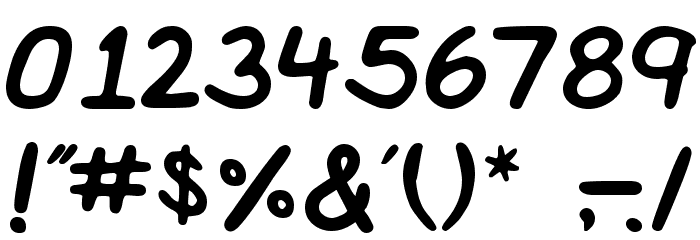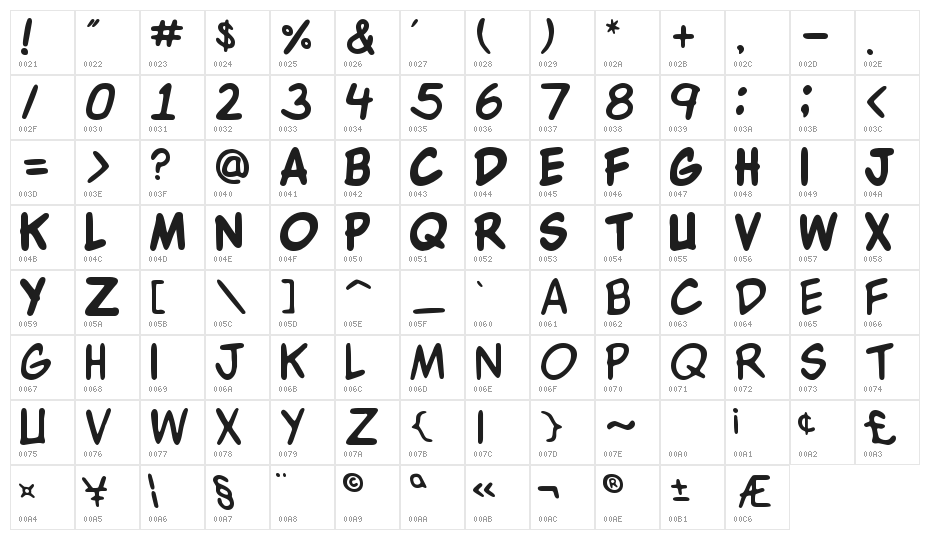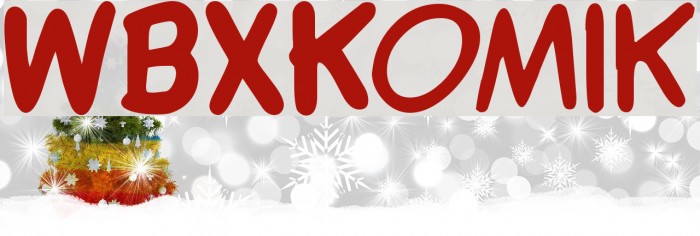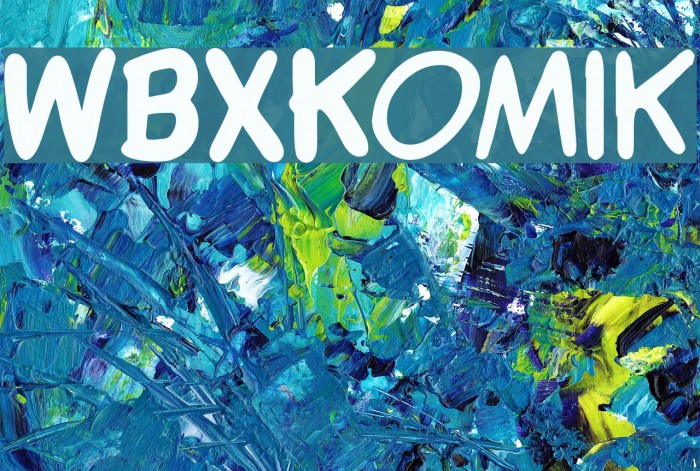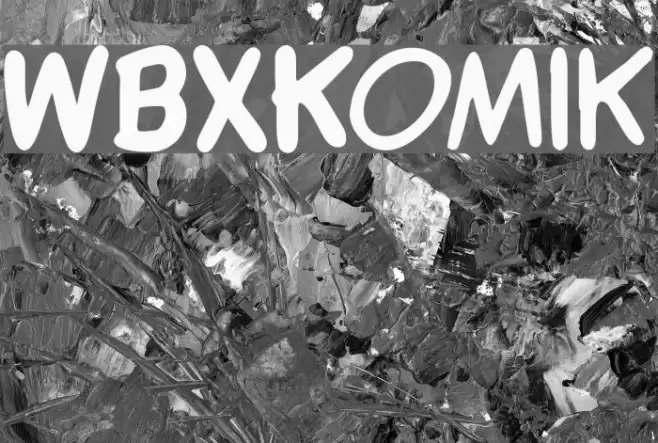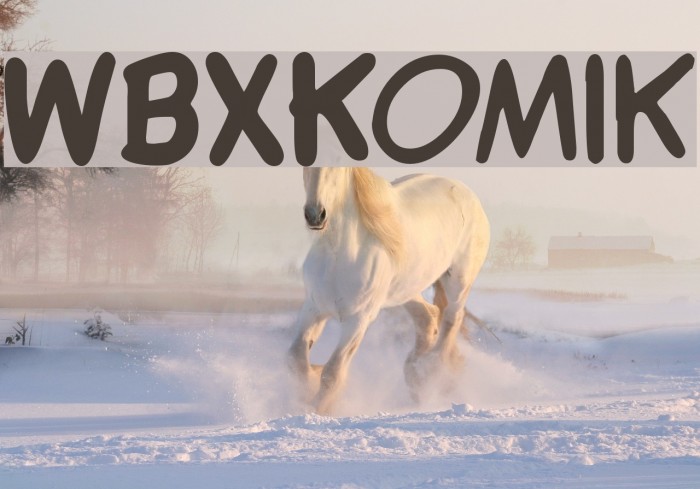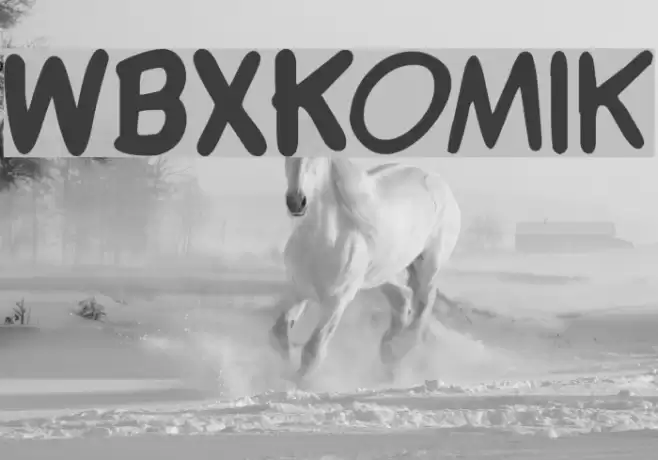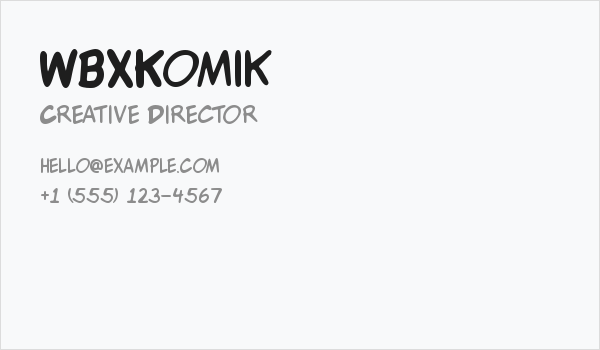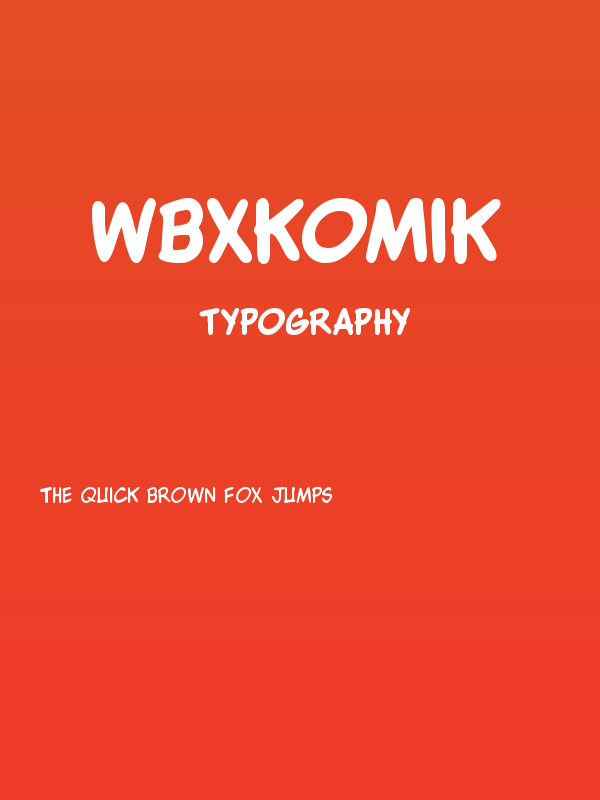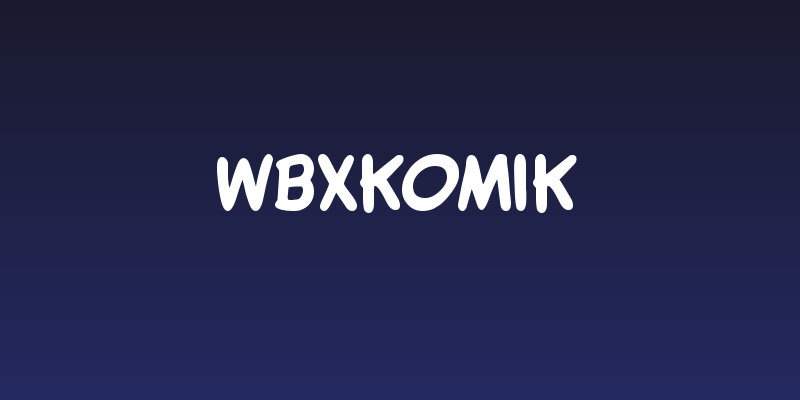
WBXKomik Font
WBXKomik Description
This playful and bold font features a hand-drawn, comic-style appearance with rounded edges and a casual, friendly vibe. The characters are slightly irregular, adding to the whimsical and informal feel. The uppercase and lowercase letters maintain a consistent style, with a slightly exaggerated, cartoonish look. Numbers and special characters are designed to match the overall playful aesthetic, making this font ideal for projects that require a fun and approachable tone.
| Overall Style | Playful, Comic, Informal |
| Proposed Projects | Perfect for comic books, children's books, playful branding, posters, and informal invitations. |